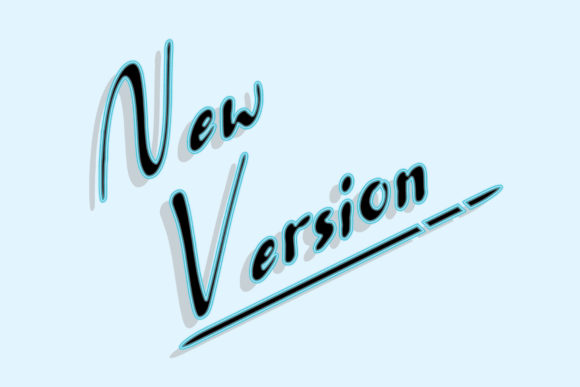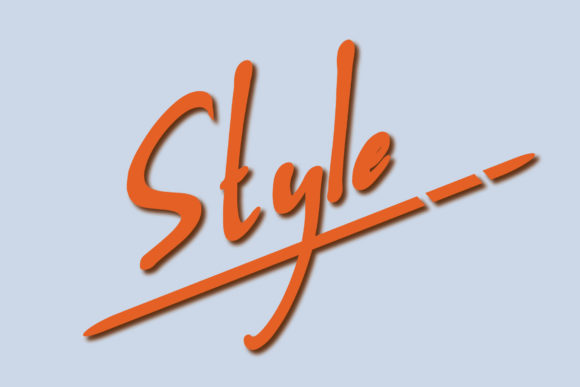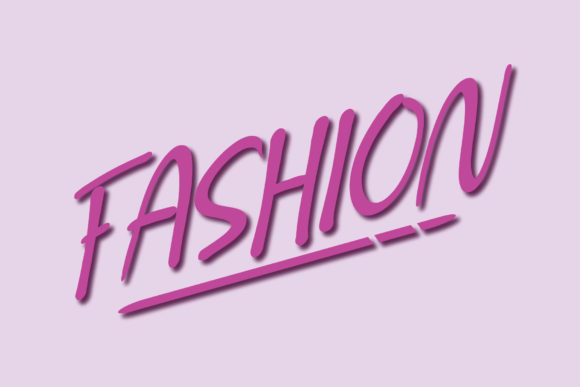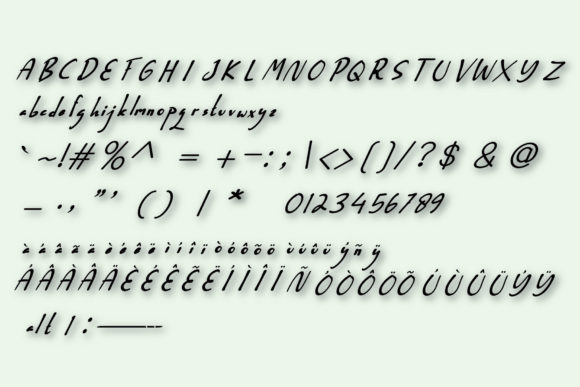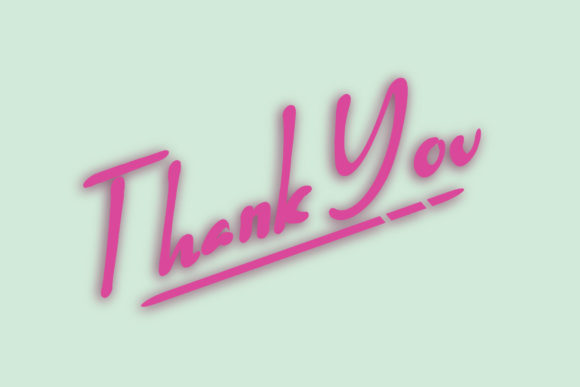
New Version Font
About New Version Font
New Version is a stylish and delicate font. It has a clean, thin and smooth vibe and it will be a hit for any design that you want to add it to.